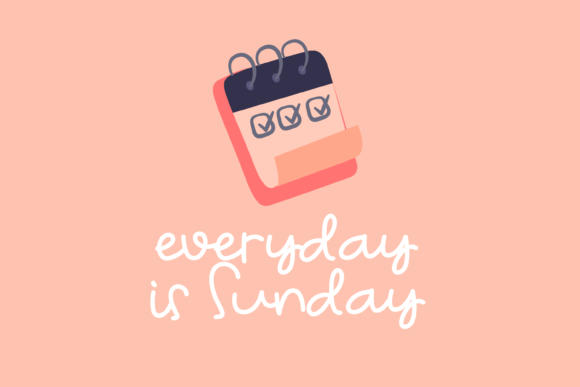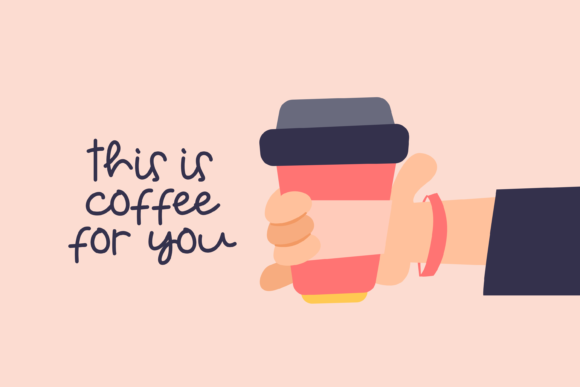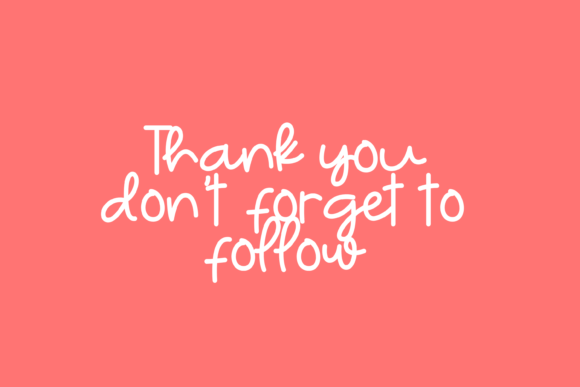
Introduction to Floral Botanical Font
Do you remember the feeling of strolling through a lush garden on a warm summer day, surrounded by vibrant flowers and the soothing sounds of nature? For designers, that sense of serenity can be the perfect inspiration for a creative project. And, what better way to capture that essence than with the delightful Floral Botanical Font? This cheerful and cozy handwritten font is a design resource that will transport your audience to a world of natural beauty.
Whether you’re working on a wedding invitation, a botanical illustration, or a branding project, the Floral Botanical Font is the perfect addition to your design toolkit. With its friendly and approachable vibe, it’s easy to see why designers love this font for its versatility and high quality. And, the best part? It’s available for free download with a transparent background, making it a valuable asset for any design project.
Key Features of Floral Botanical Font
- Unique, hand-drawn design inspired by traditional botanical illustrations, perfect for creative projects requiring a touch of elegance.
- High-quality font with clear, readable characters, ideal for use in various design applications, from print to digital media.
- Perfect for designers seeking a unique and sophisticated design element, such as headings, titles, or decorative text, in their creative project.
Honest Review: Floral Botanical Font
I recently had the opportunity to work with the Floral Botanical Font for a creative project, and I must say it was a delightful experience. The font is a beautiful addition to any design, offering a delicate and intricate design that’s perfect for projects that need a touch of elegance.
Here are some of the things that work well with this font:
- ✨ High-quality design: The font is meticulously crafted, with each letter and symbol carefully designed to create a cohesive and visually appealing look.
- ⚠️ Limited character set: The font only includes a limited character set, which may not be suitable for projects that require a wide range of characters or languages.
- ⚠️ Not suitable for large text: Due to its delicate design, the font may not be the best choice for large text sizes, as it can become difficult to read.
Overall, I was impressed with the Floral Botanical Font and would highly recommend it for design projects that require a touch of elegance and sophistication. Just be aware of its limitations, and use it in moderation to get the most out of it.
Floral Botanical Font Overview
The Floral Botanical Font is a high-quality design resource perfect for creative projects that require a touch of elegance and sophistication. With its beautiful floral elements and delicate lines, this font is ideal for designers looking to add a unique touch to their work.
Tips for Getting the Most Out of Floral Botanical Font
To get the most out of the Floral Botanical Font, try combining it with other design elements such as watercolor textures and illustrations. Experiment with different font sizes and styles to create a unique and eye-catching design.
The Floral Botanical Font is perfect for: